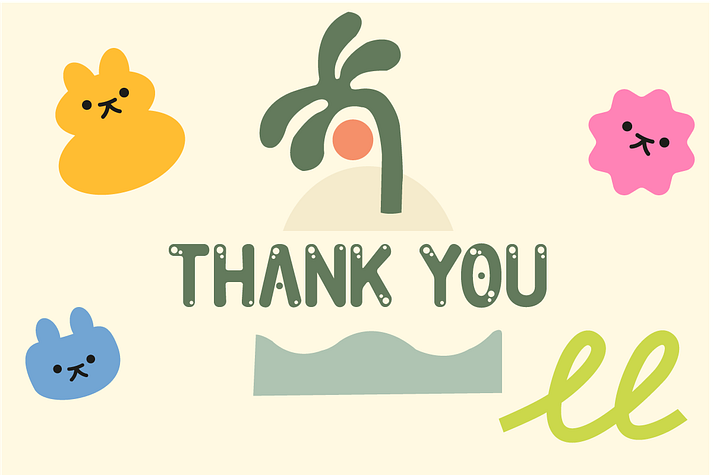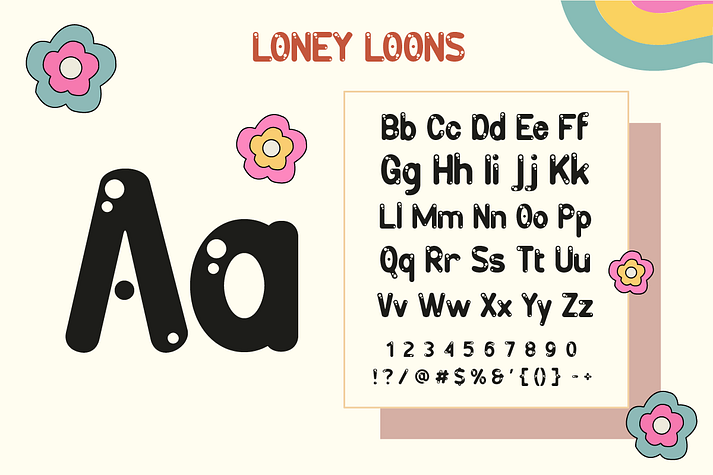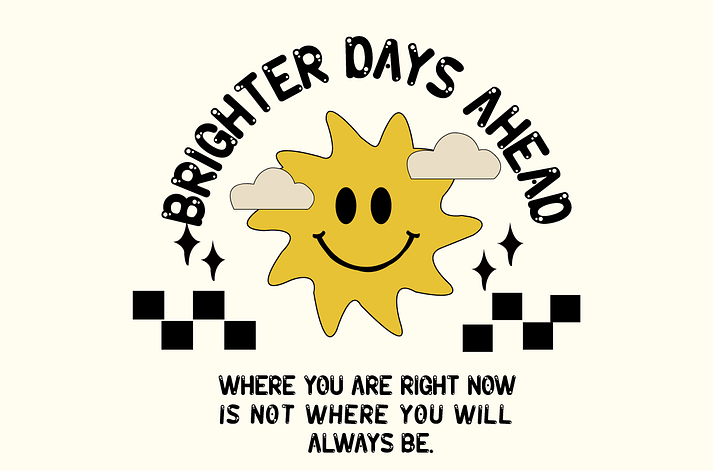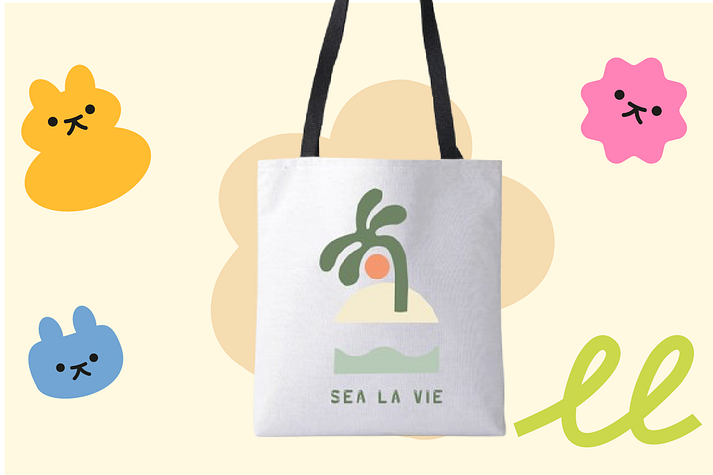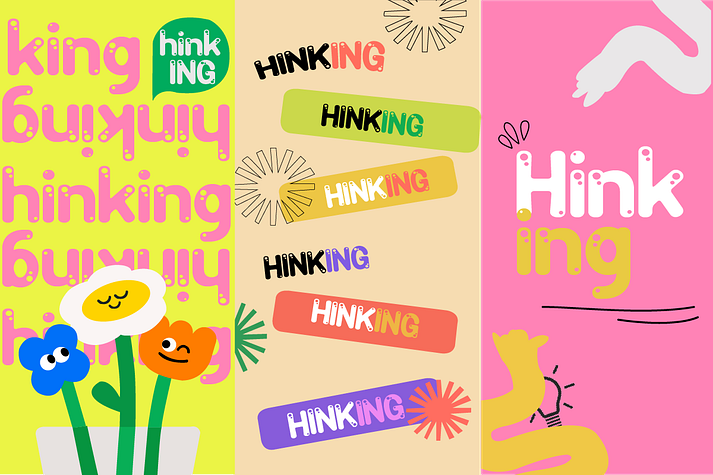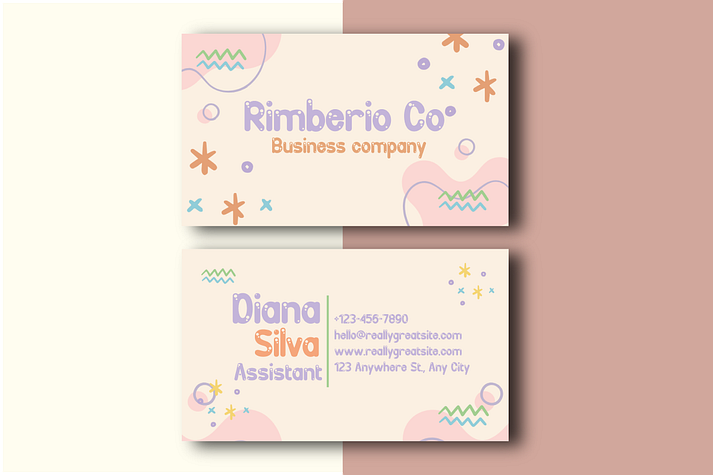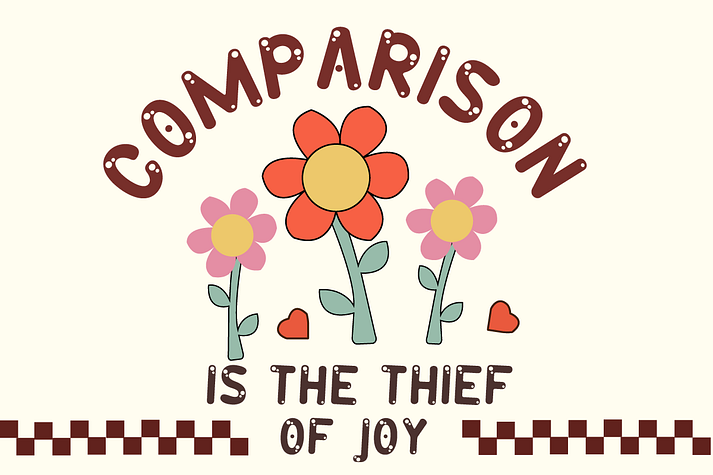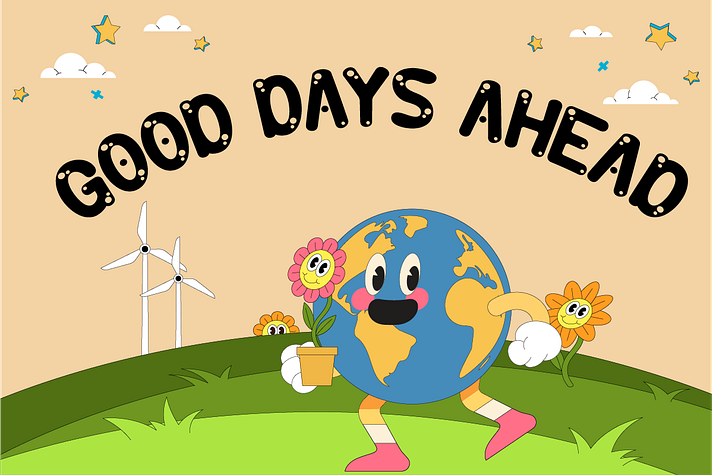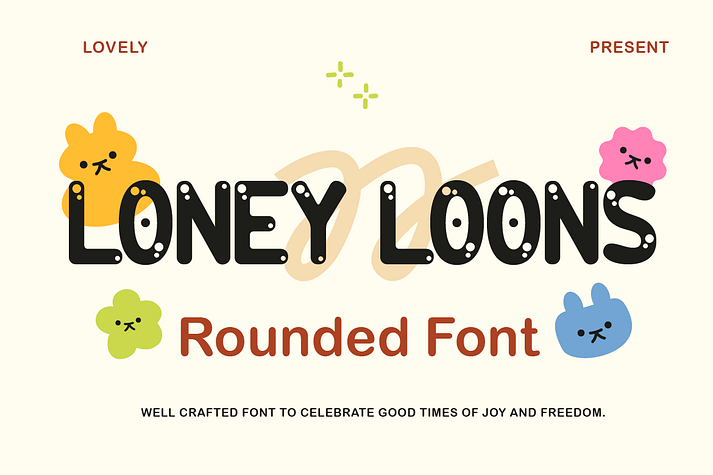
Loney Loons
Designed by Eric Kurniawan, Loney Loons is a novelty font family published by Burntilldead.
Say helo to Loney Loons, a modern, playful and unique font that creates contemporary look with artistic flair and balances readability. The style features smooth, rounded edges combined with holes within the letterforms. The rounded curves add a soft, approachable feel, while the holes introduce a sense of the edginess, making it perfect for creative projects, branding or eye-catching headlines.
Designer Eric Kurniawan